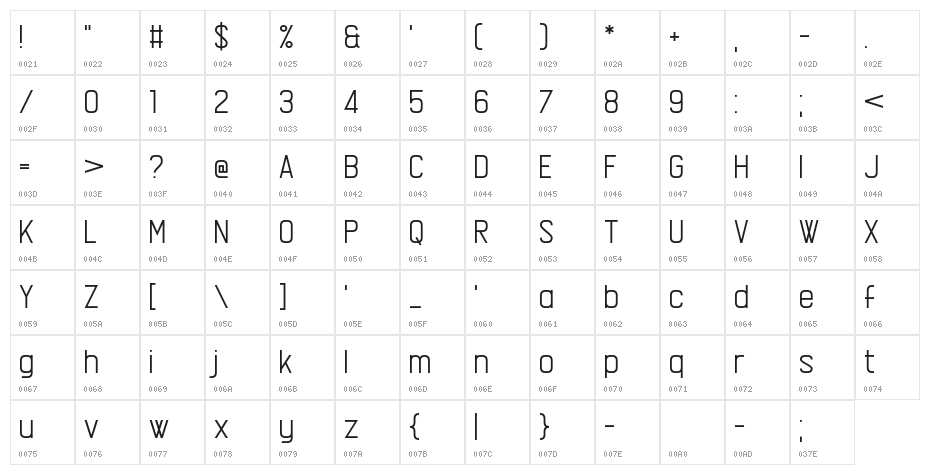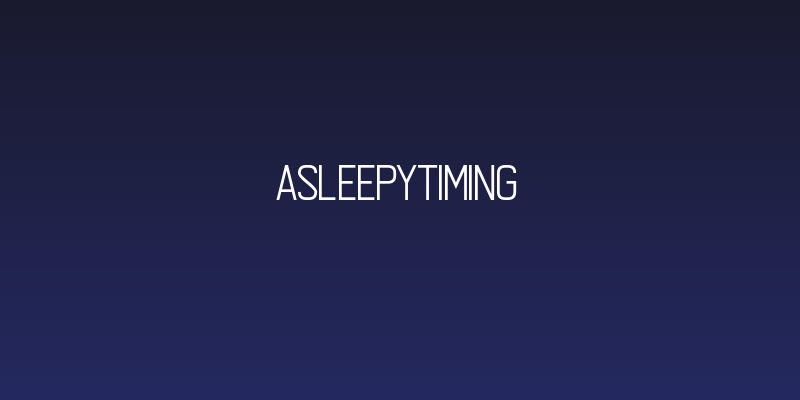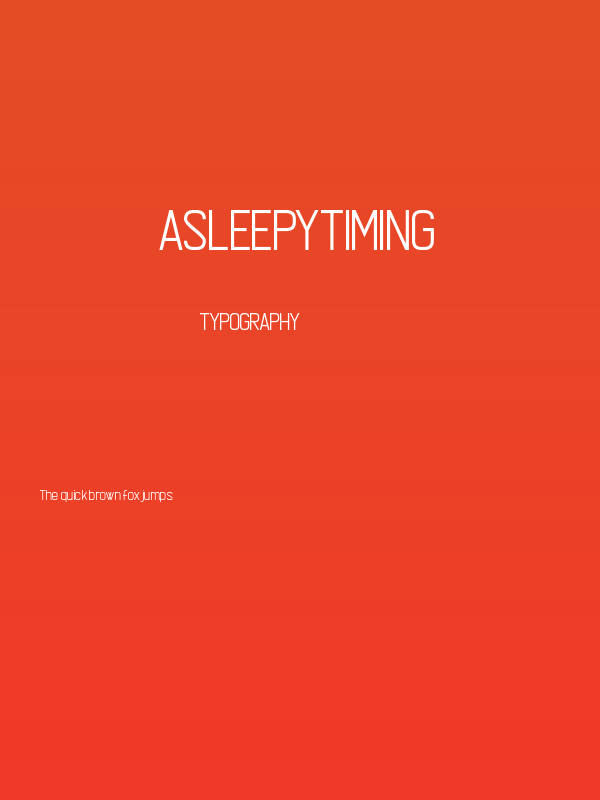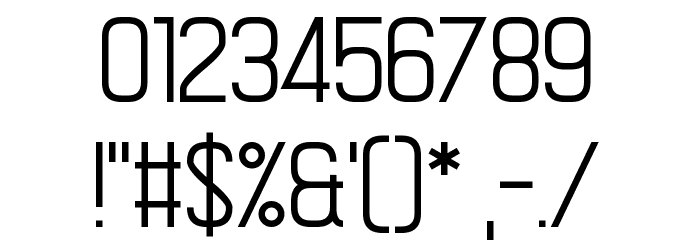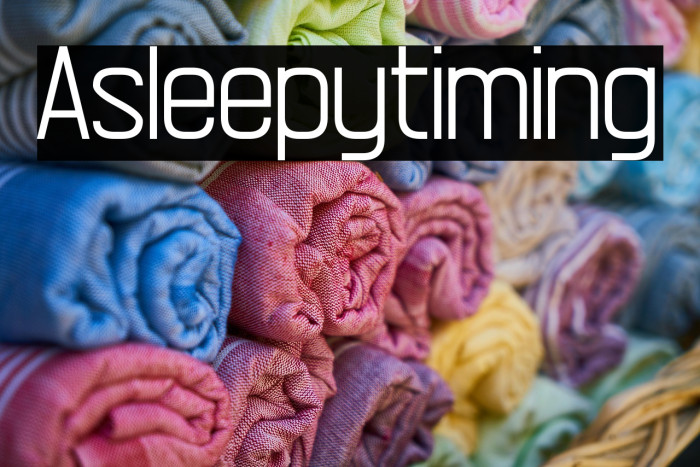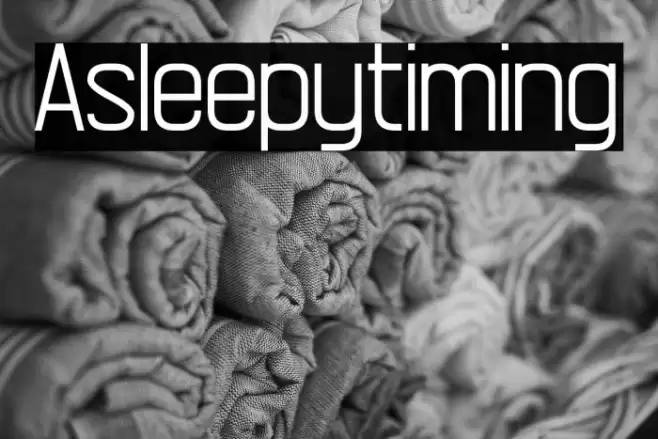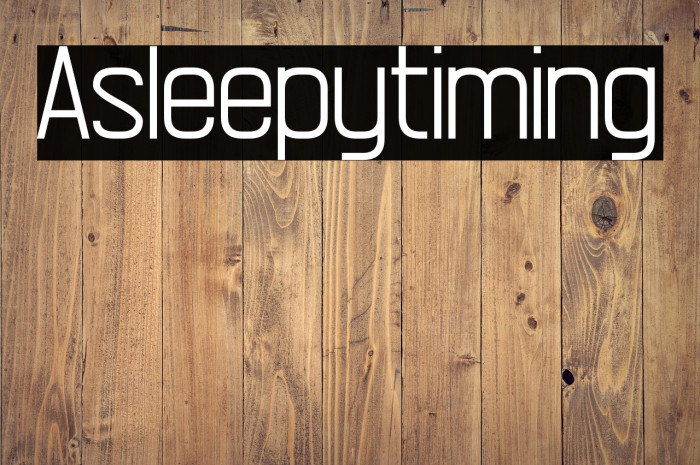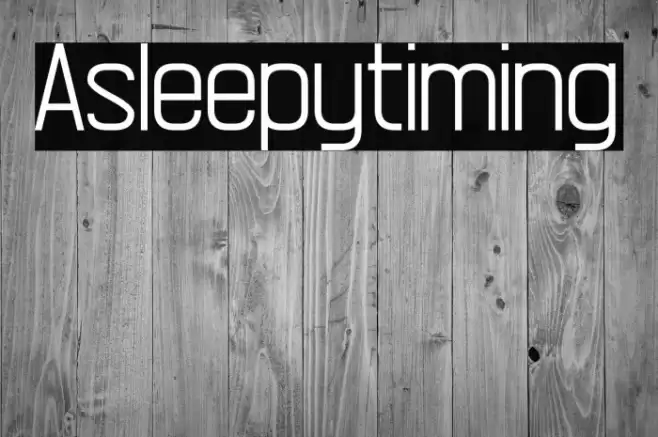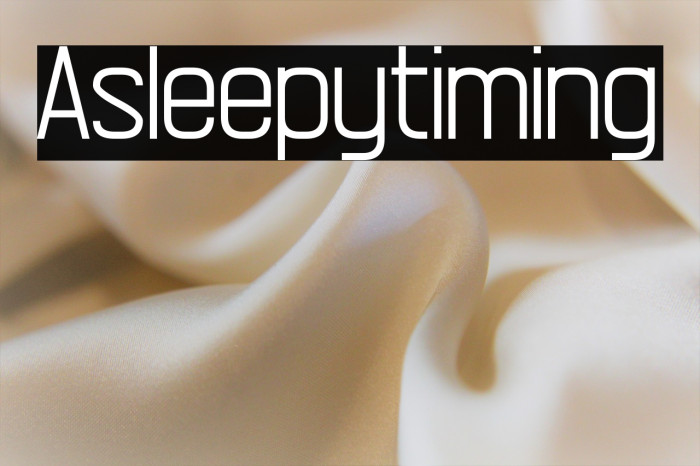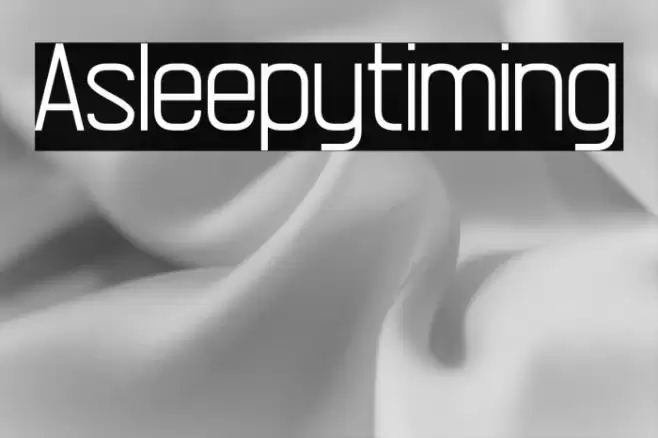
Asleepytiming Font
| Projets proposés | Ideal for branding, advertising, digital interfaces, and editorial design where a modern and clean look is desired. |